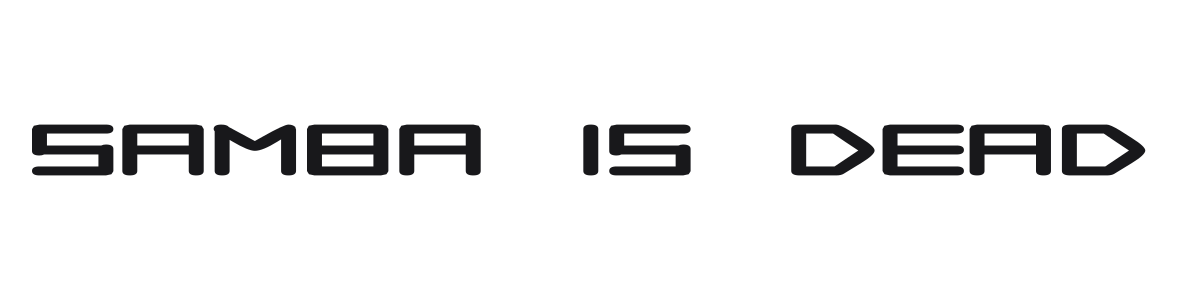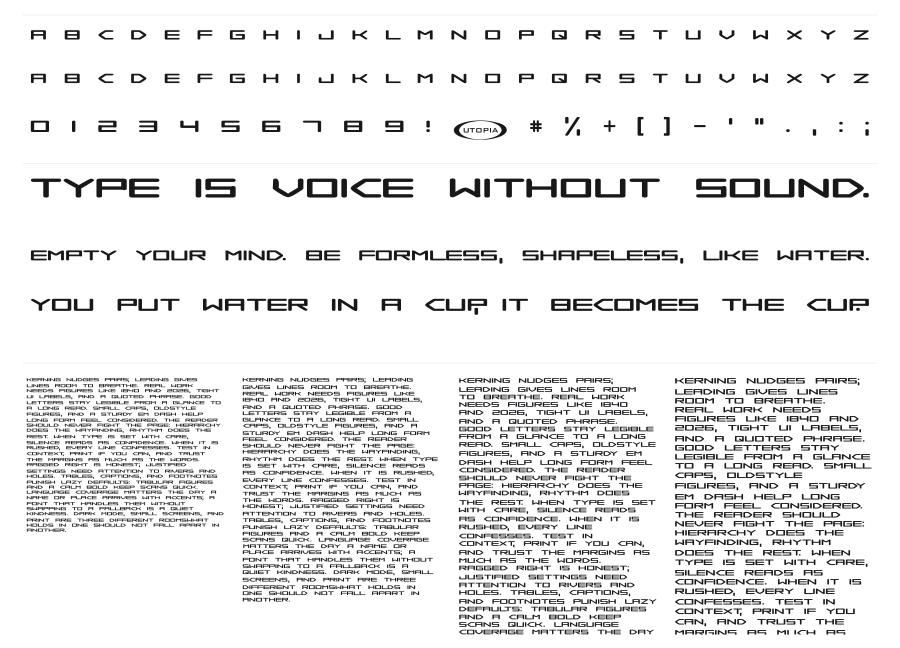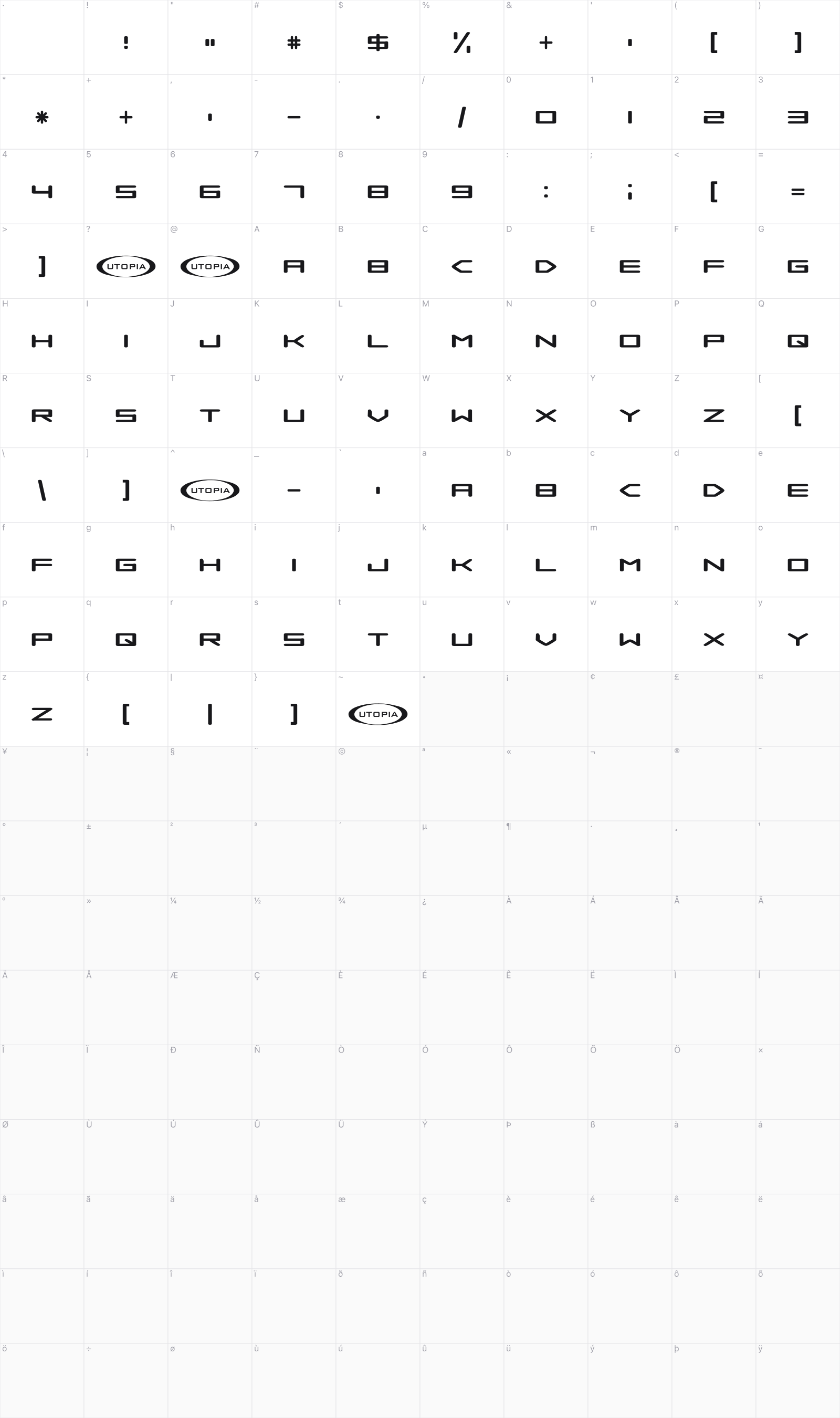
Samba is Dead
Samba is Dead is a bold square-geometric display font from 1999 with a distinctly mechanical, modular character. Every letter is built from rounded rectangular strokes with tight corners, giving it a dense, industrial feel that landed in a sweet spot between sci-fi and underground club culture. It hits hard at large sizes and works well for music, gaming, and anything that needs an edge.